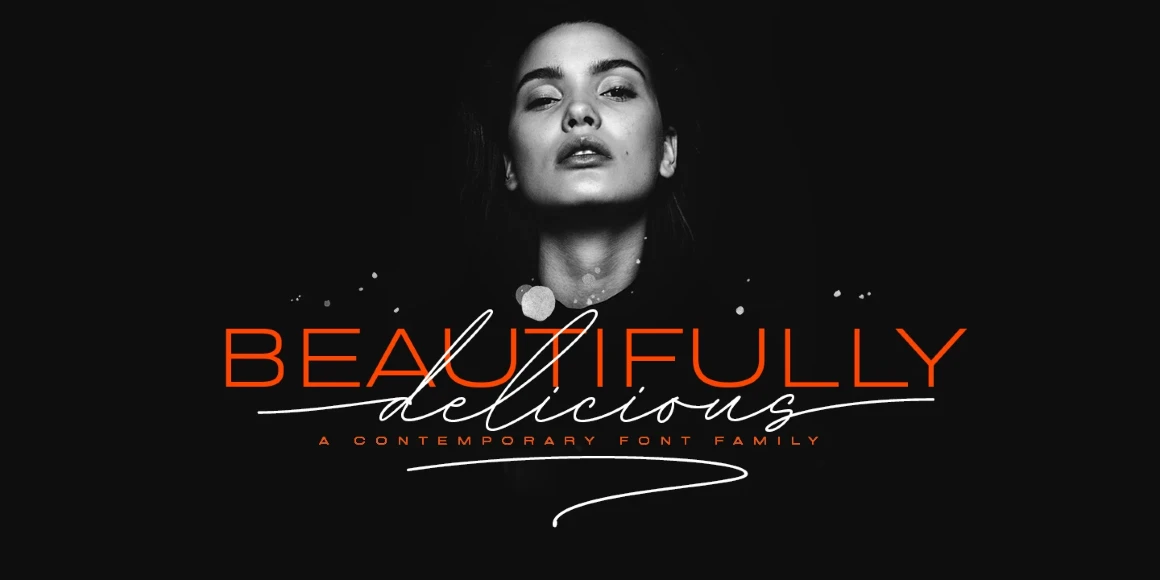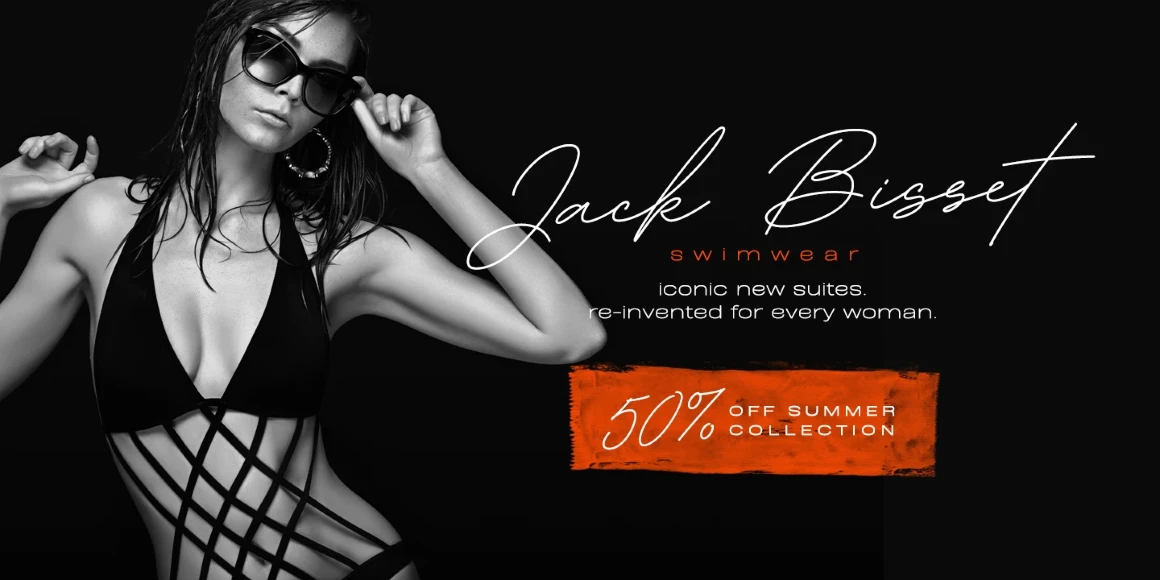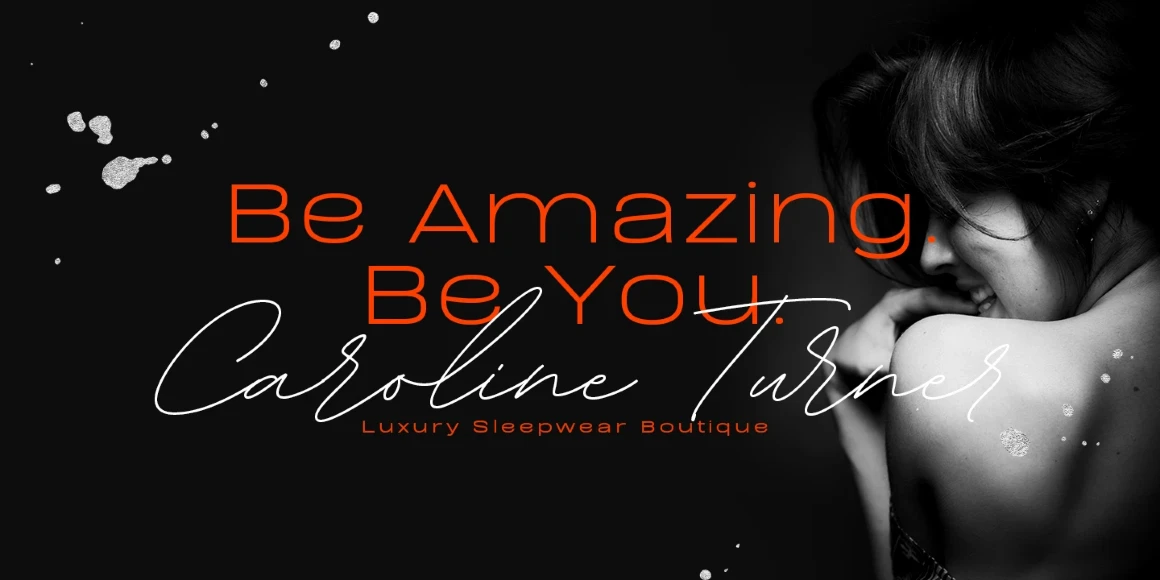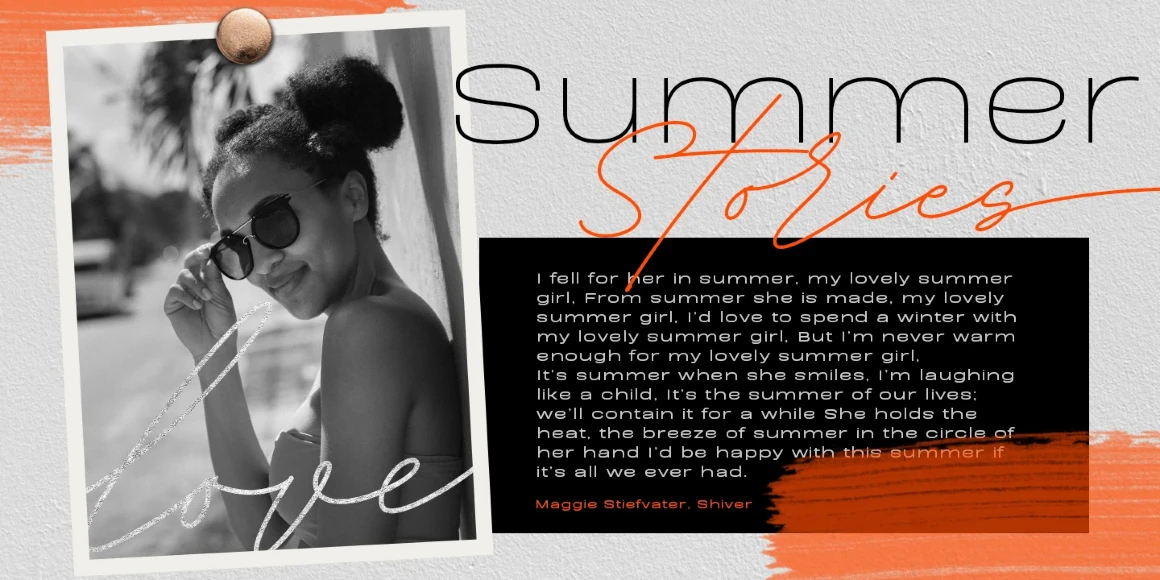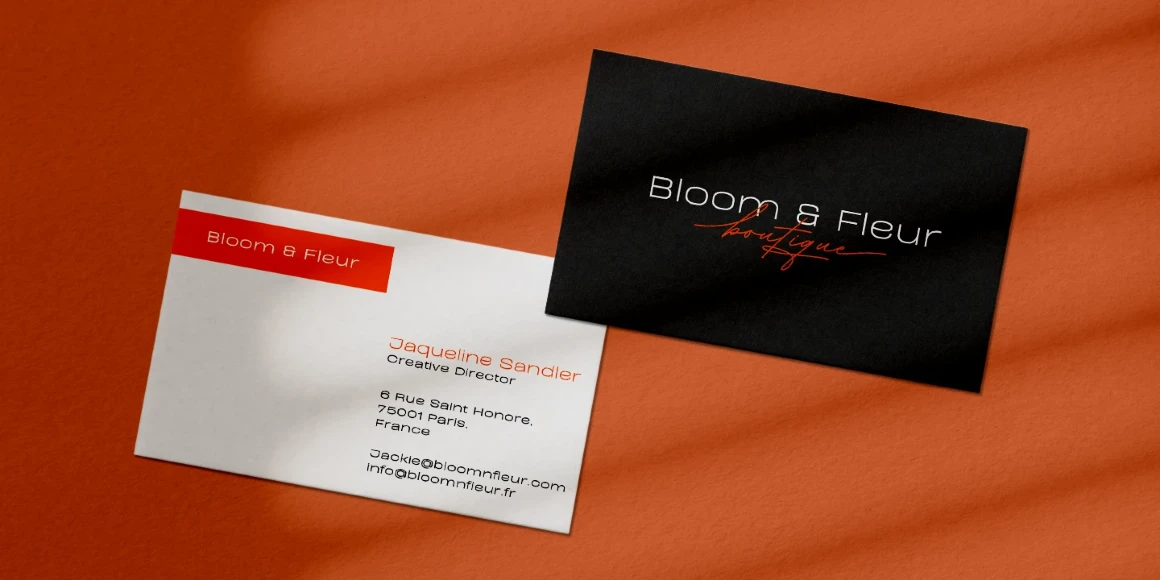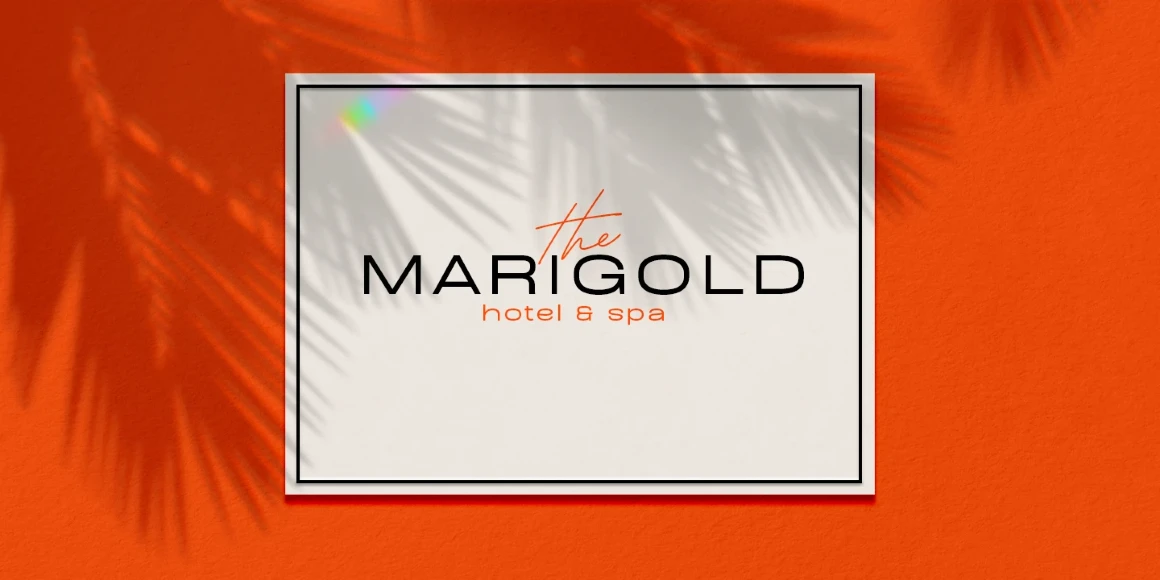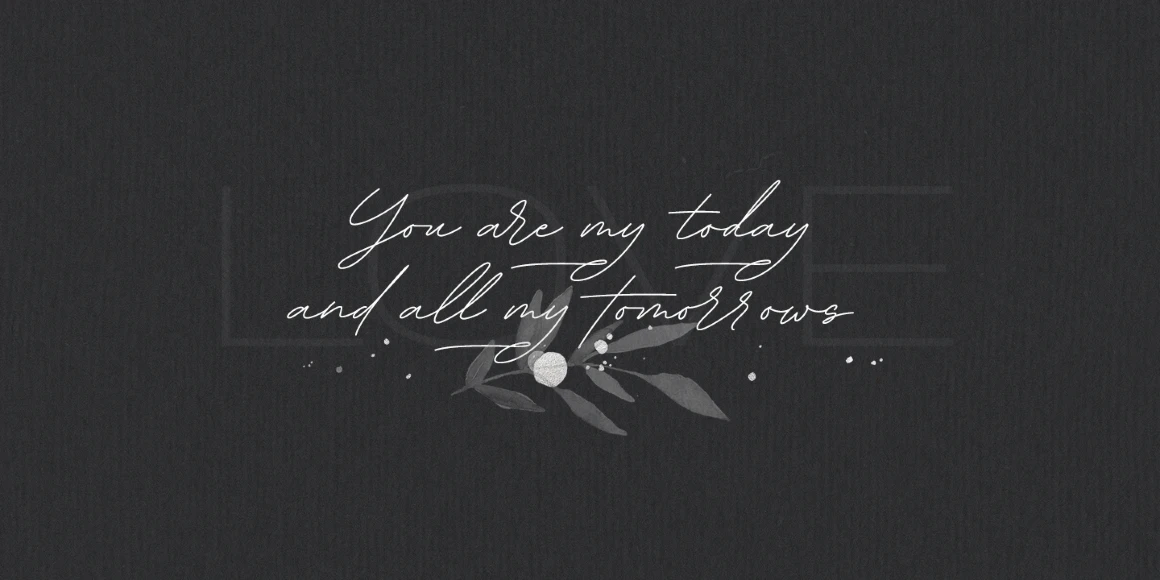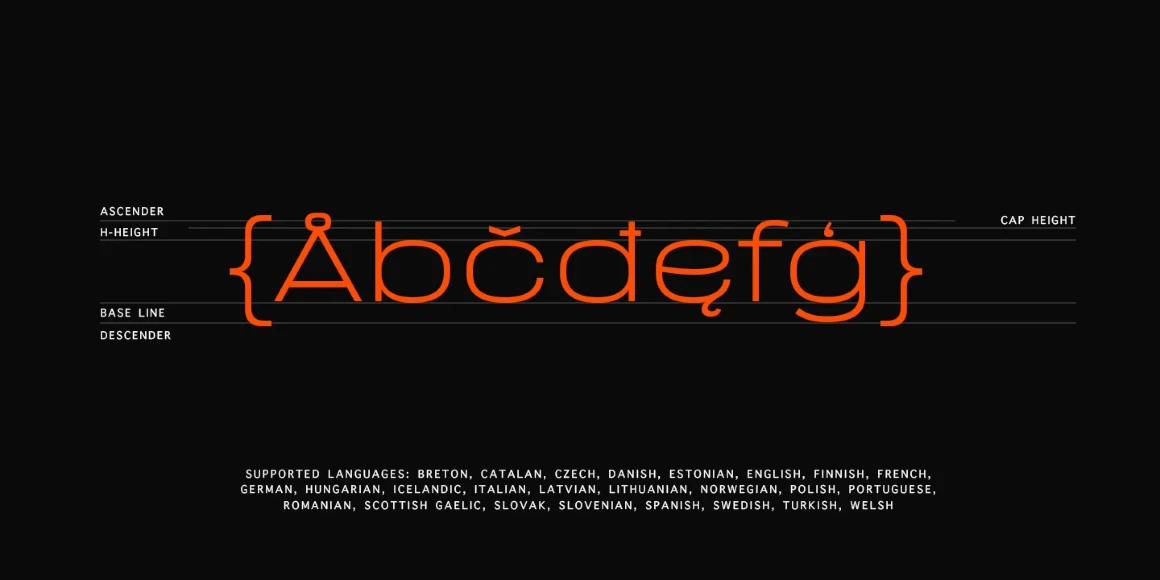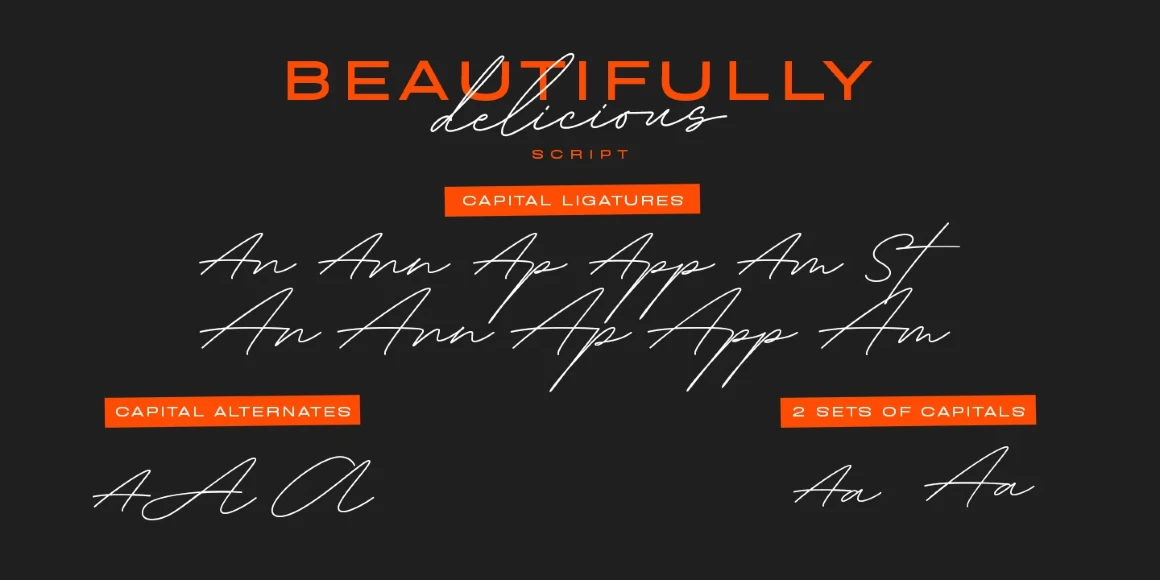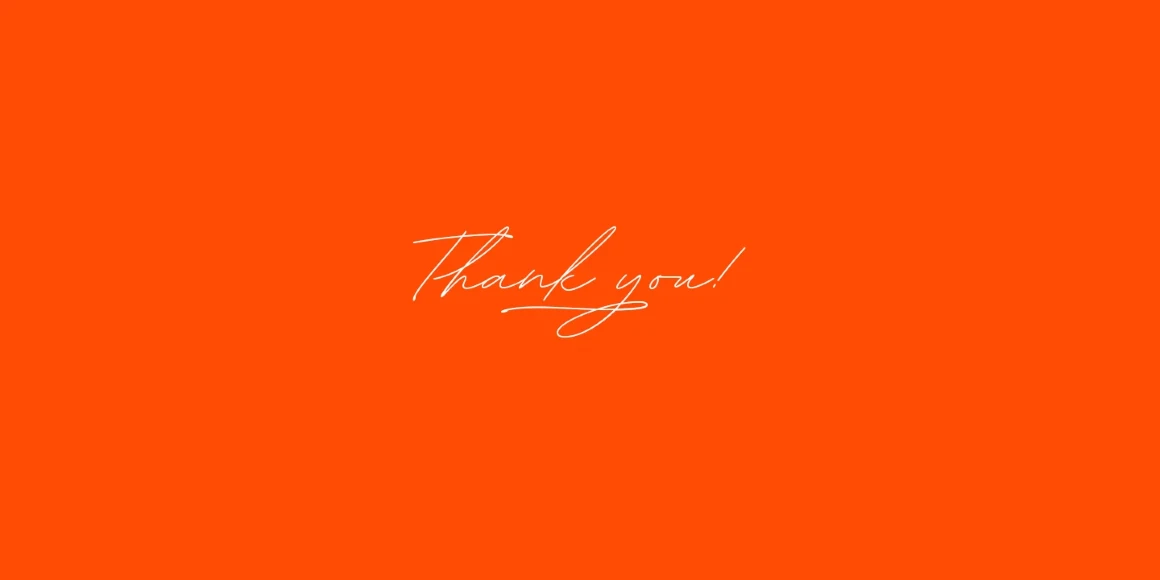
Beautifully Delicious Sans
By Elena Genova
Beautifully Delicious Sans Thin
Beautifully Delicious Sans Regular
Beautifully Delicious Sans Bold
Beautifully Delicious Sans Black
Beautifully Delicious is a font family that combines an elegant extended sans serif with a signature script. Both styles create a harmonious union that can enhance your designs in the best possible way. The script is enriched with ligatures, swashes, and alternates to create perfect word shapes. The modern sans design has unexpected curves and alternates to add unexpected detail. The family is suitable for graphic design, quotes, branding, social media ads, magazines, greeting cards, packaging etc.